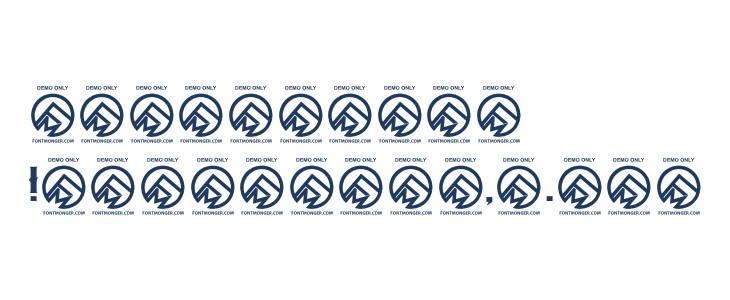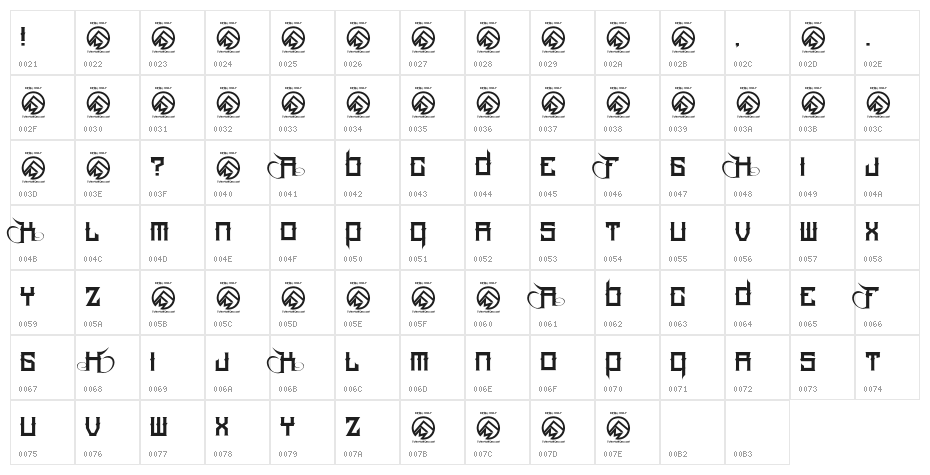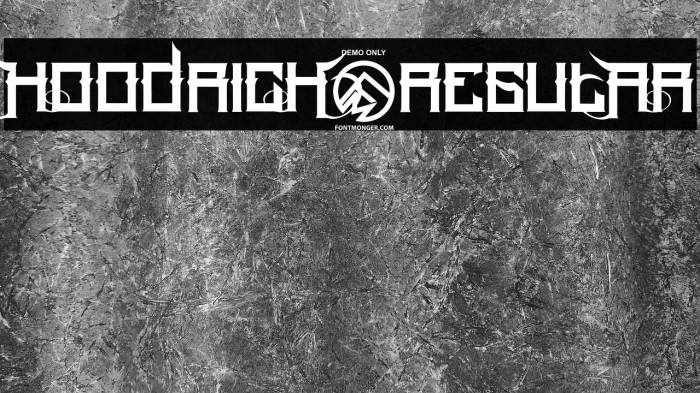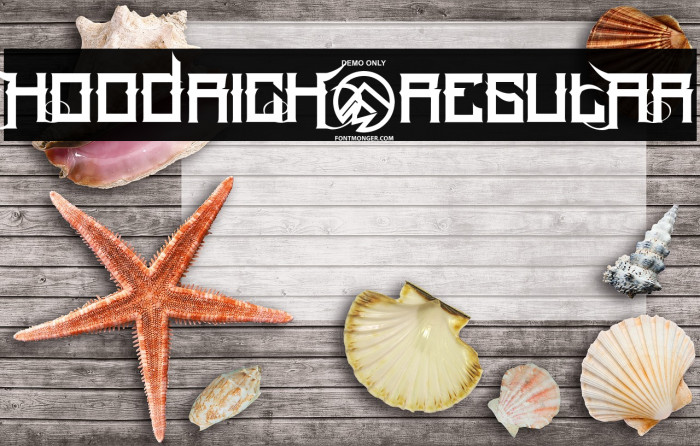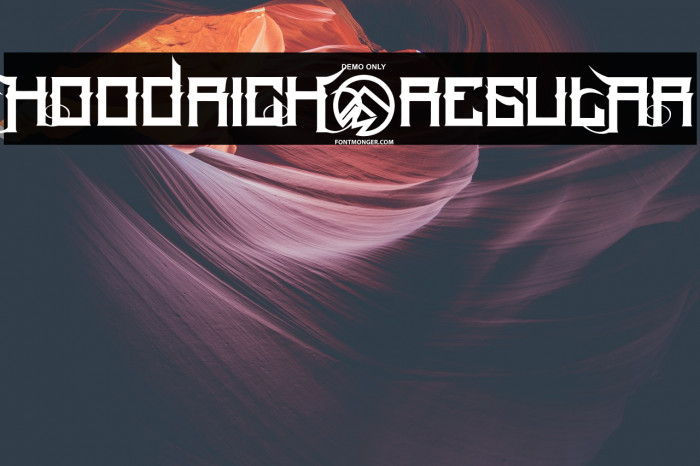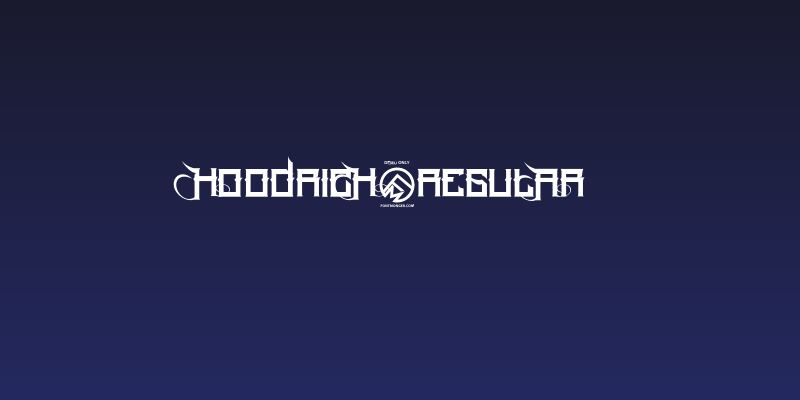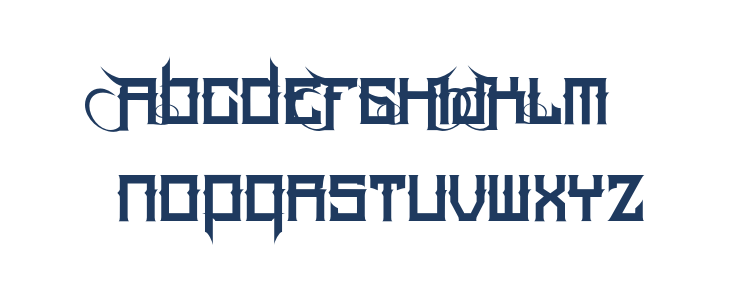
HoodRich-Regular Font
HoodRich-Regular Description
This font features a bold, angular design with sharp edges and a distinct geometric style. The uppercase and lowercase letters maintain a consistent height, creating a uniform appearance. The characters are designed with a modern, edgy aesthetic, incorporating pointed serifs and unique cutouts that add to its striking visual impact. The numerals and special characters follow the same design principles, ensuring cohesion across all glyphs. This font is ideal for projects that require a strong, impactful presence.
Use CaseLogos, Headlines
Proposed ProjectsPerfect for branding, logos, album covers, and streetwear designs.